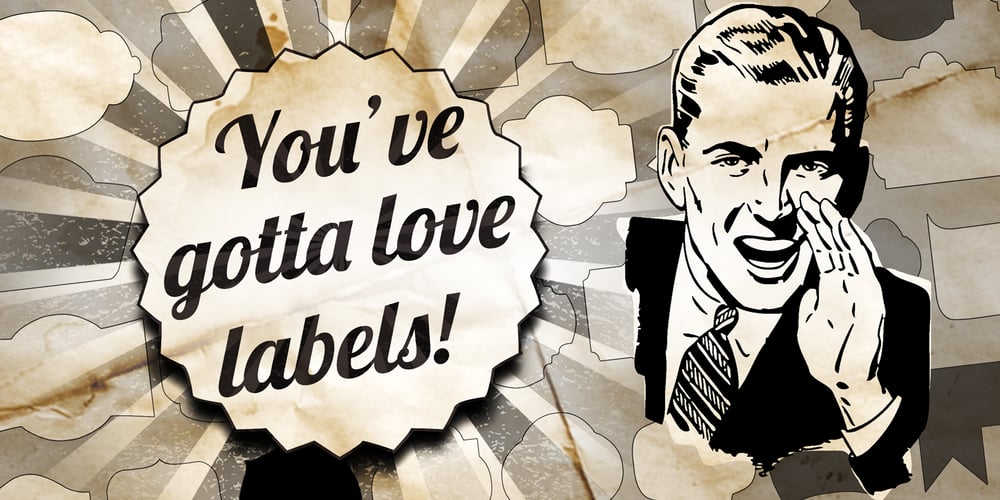
Label Pro XL Font Family was designed by Coert De Decker and published by Kustomtype. Label Pro XL contains 11 styles and family package options. LABEL PRO XL is a massive high quality collection of classic, modern and vintage labels. Containing more than 150 glyphs, LABEL PRO XL is convenient and essential in numerous business sectors; such as food or non-food labeling, B2B and B2C sales; stickers, stamps or advertising designs etc. LABEL PRO XL offers you a quick & easy solution for all vector designs and application software. The LABEL PRO XL font is fully handtraced, a first-class and worldwide highly appreciated quality. LABEL PRO XL, a complete font that contains twelve different styles, tons of combinations, cool swaches & flags, LABEL PRO XL is particularly developed for creative people.